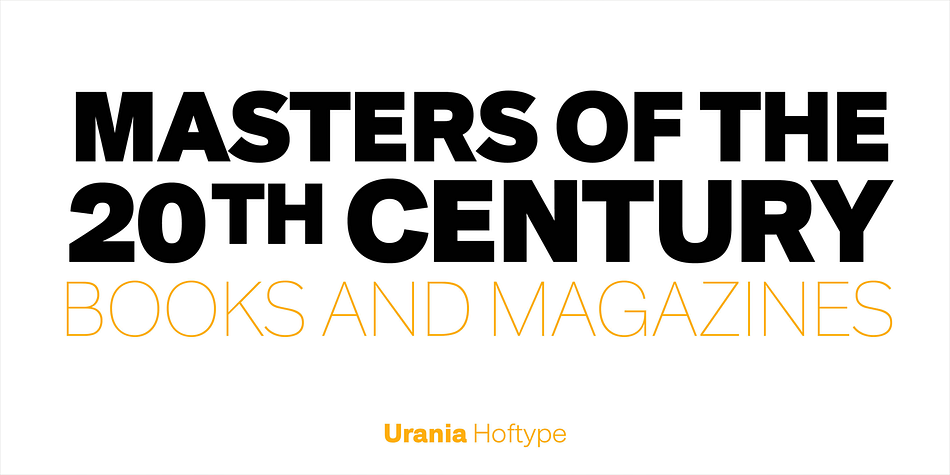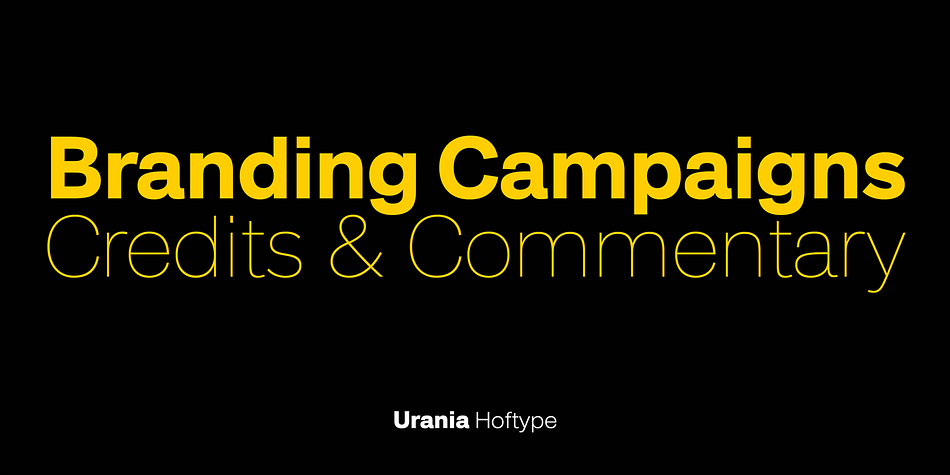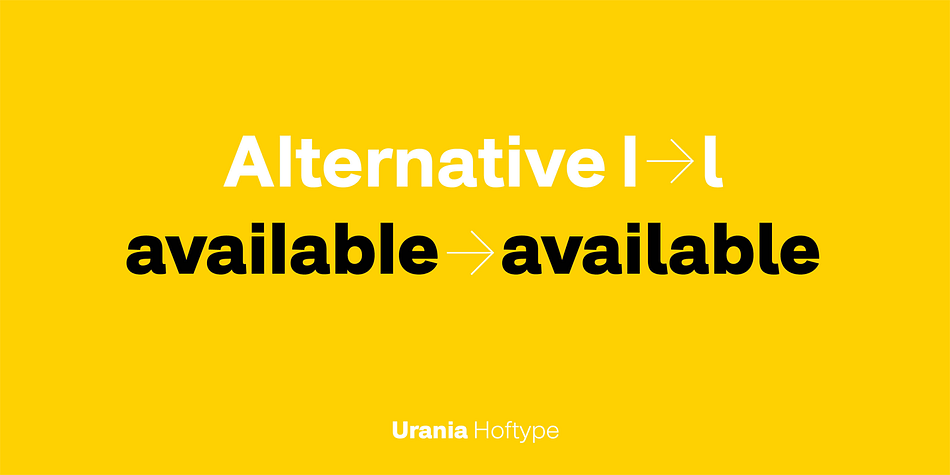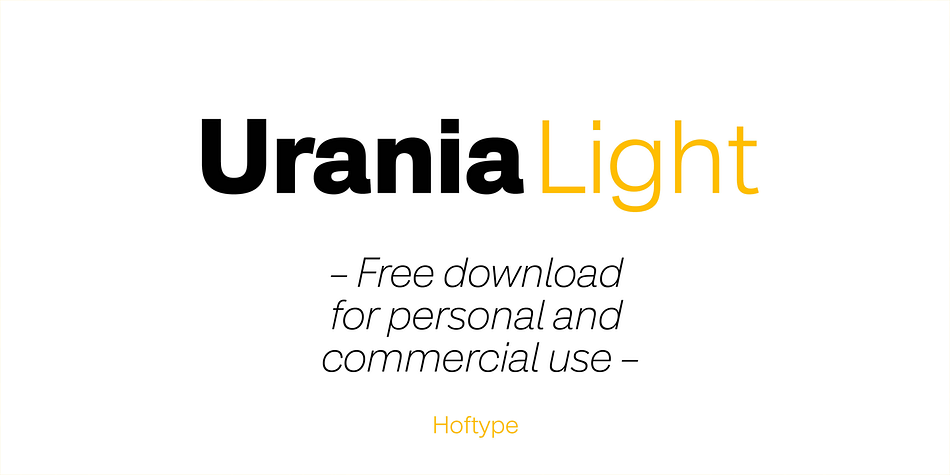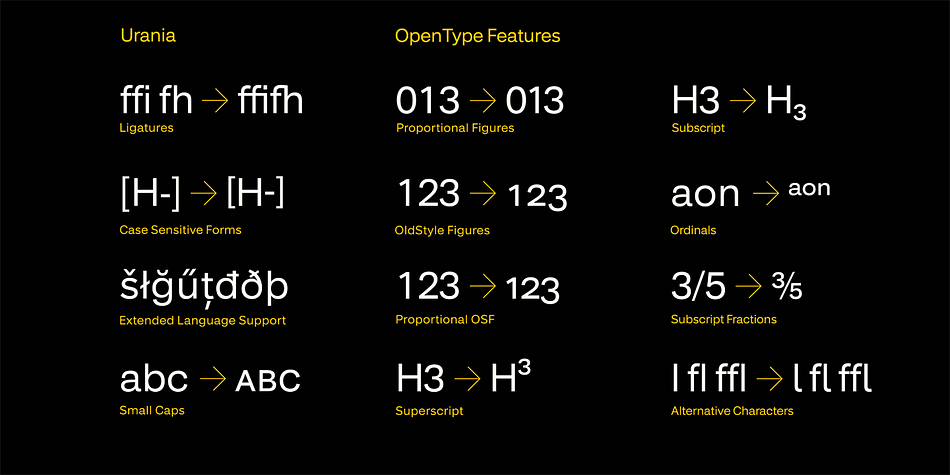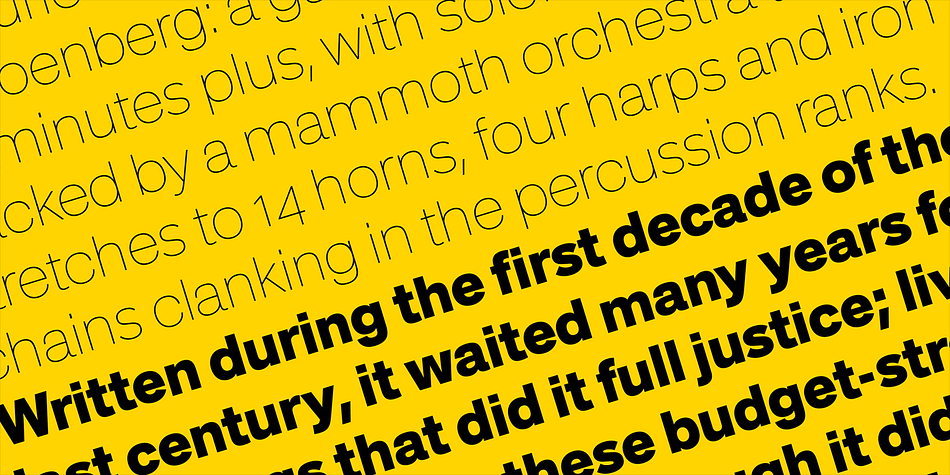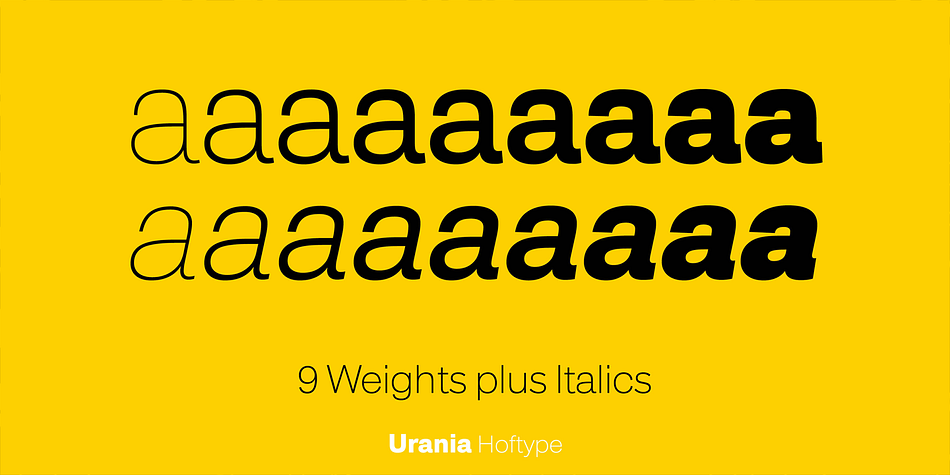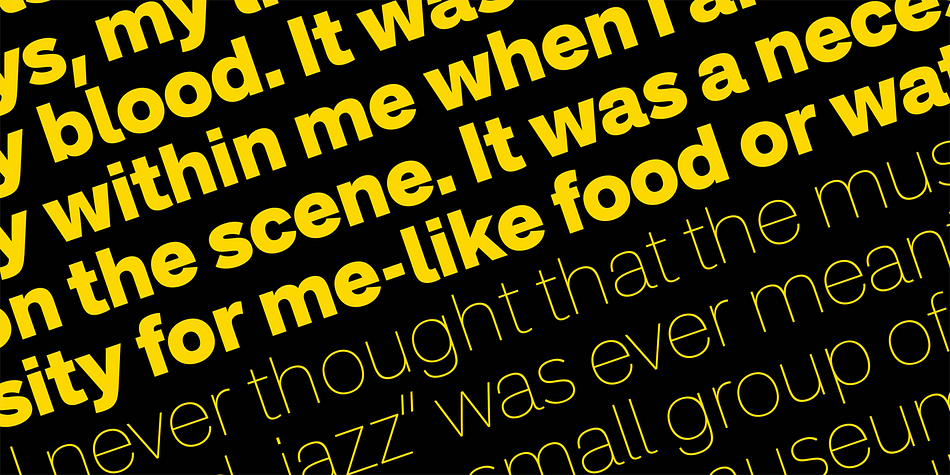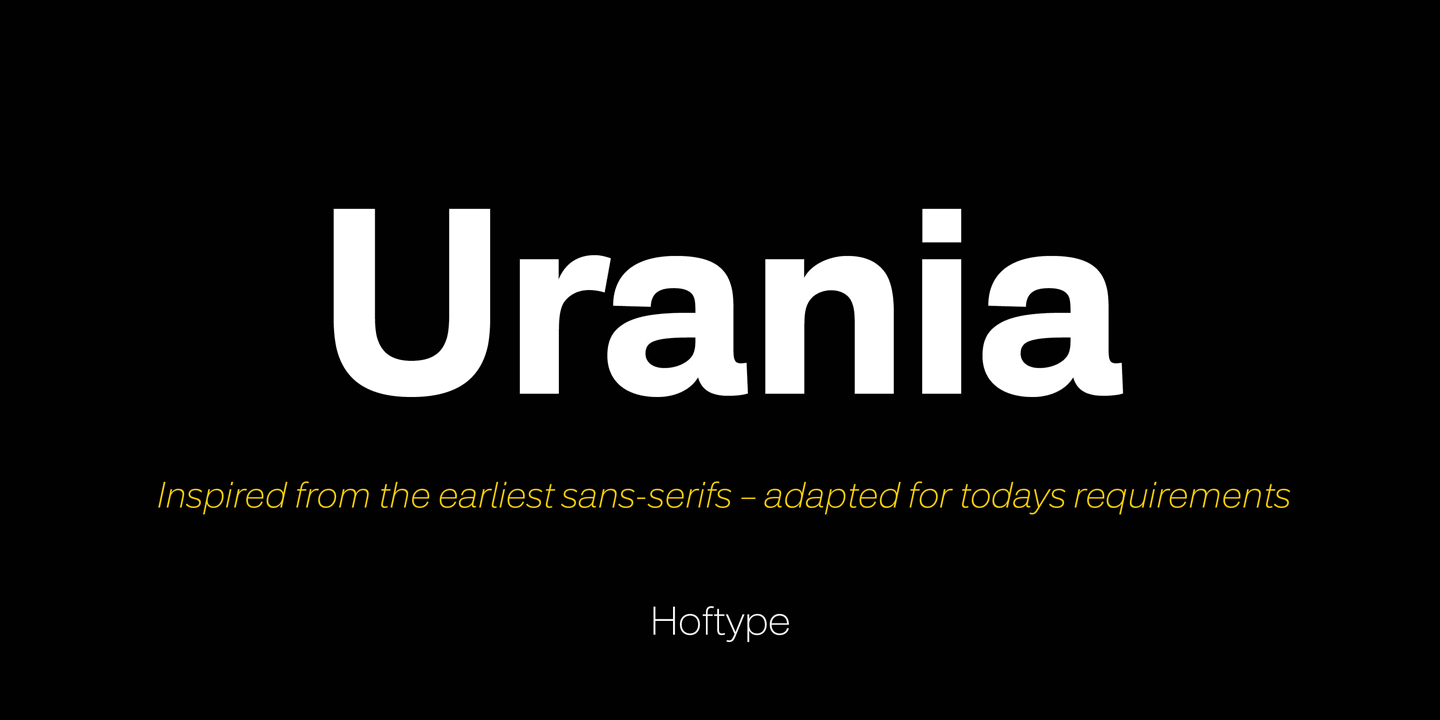
Designed by Dieter Hofrichter, Urania is a sans serif font family. This typeface has eighteen styles and was published by Hoftype.
Urania is a new aproach to early sans serif typefaces, in particular Ferdinand Theinhardt’s types which came out at the beginning of the 20th century. Urania is not an adaption, but a new interpretation of familiar and successful formal features, transformed into a contemporary look.
The Urania family consists of 18 styles and it comes in OpenType format with extended language support for more than 40 languages. All weights contain ligatures, proportional lining figures, tabular lining figures, proportional old style figures, lining old style figures, matching currency symbols, fraction- and scientific numerals, matching arrows and alternative characters.